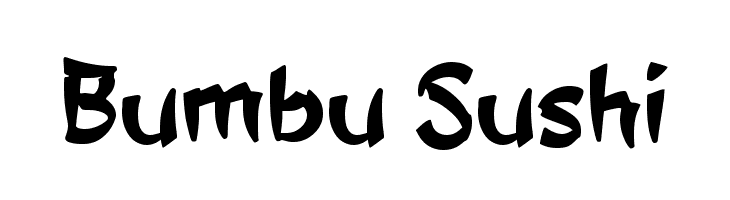
A playful, bold brush-style font with thick, rounded strokes and a hand-drawn appearance.
A bold, hand-drawn font with playful curves and thick strokes.
A playful, hand-drawn font with bold, rounded characters and a whimsical style.
A bold, hand-drawn font with a playful and dynamic style.
A playful, bold font with rounded edges and a whimsical style.